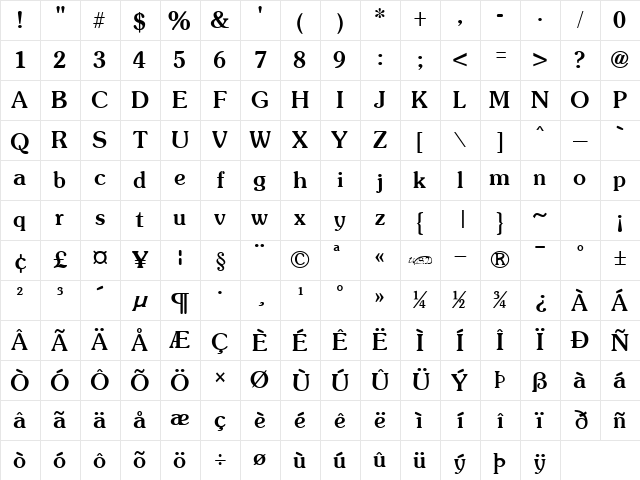
Soutane fed
Style: fed
Design Context for Soutane
Soutane is a composed and adaptable typeface that performs quietly and consistently across a wide range of design contexts.